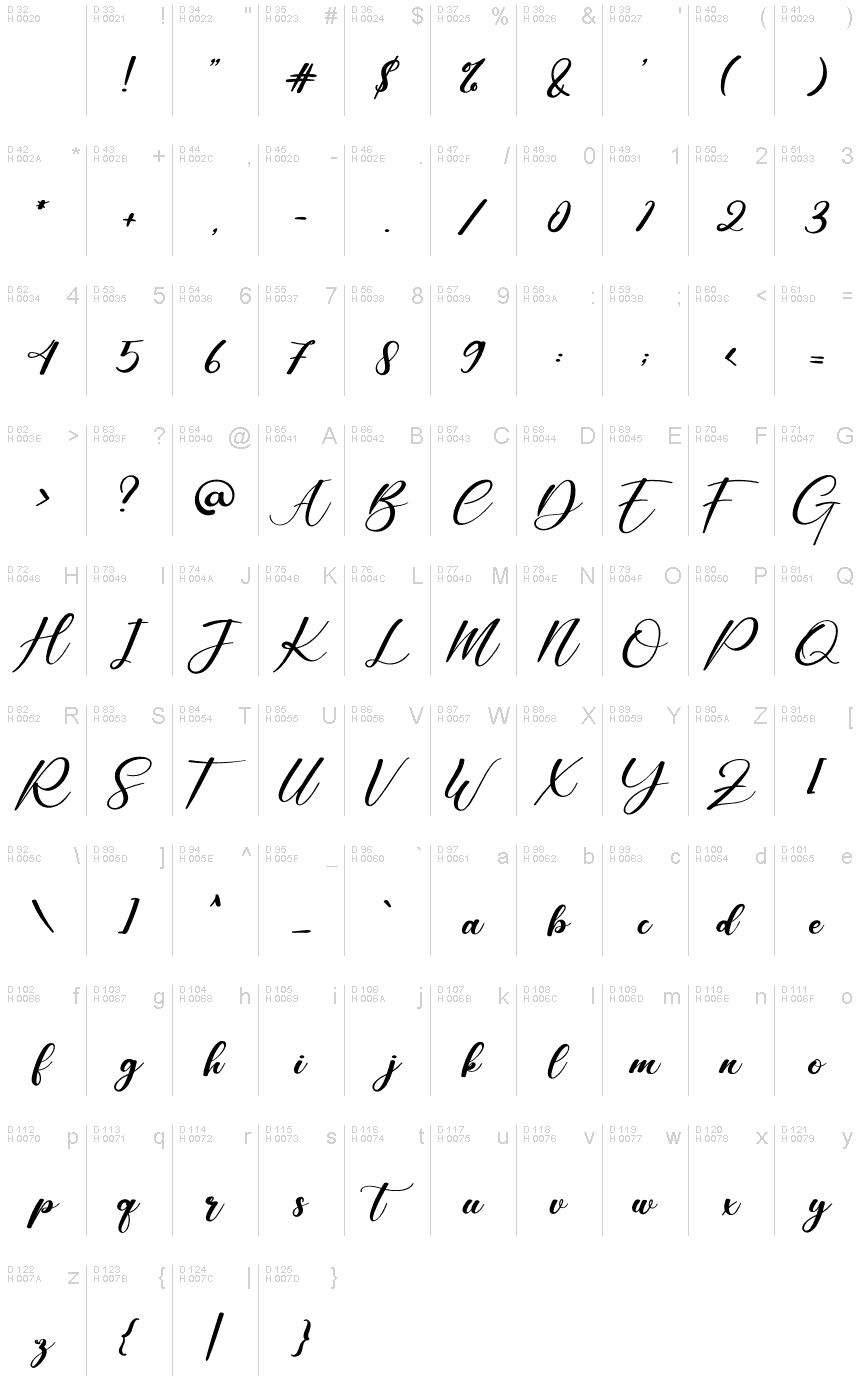
The Manila
The Manila, created by renowned font designer Erik Studio, is a stunning calligraphy font that exudes elegance and sophistication. The semi-light weight of this font adds a delicate touch to any project it's utilized in. Perfect for wedding invitations, branding projects, and editorial designs, The Manila has the ability to elevate any piece with its beautiful script style. Its versatility makes it suitable for a range of projects including social media graphics and book covers. With its graceful curves and timeless appeal, The Manila is sure to make a lasting impression on any audience.
The Manila is a round-lettered script font. It has a modern yet whimsical style and it will undoubtedly immerse your designs into a magical world.